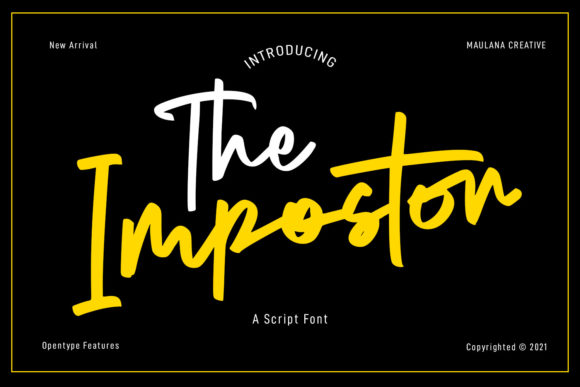
Introducing The Impostor Script Font, your ultimate weapon to conquer the job market and leave a lasting impression on potential employers. This captivating script font exudes a captivating blend of charm and professionalism, making it the perfect choice for crafting a resume that stands head and shoulders above the rest.
Unleash your creativity and watch as The Impostor Script transforms your resume into a masterpiece that radiates confidence and competence. Its intricate strokes and playful curves add a touch of flair that sets you apart from the crowd, ensuring that your application commands attention and sparks intrigue.
With The Impostor Script, you'll not only convey your skills and experience but also subtly reveal your impeccable taste and attention to detail. This font whispers of your dedication, passion, and unwavering determination to make a mark in your chosen field.
Elevate your resume to the next level and make a bold statement with The Impostor Script. Its timeless elegance and undeniable allure will captivate hiring managers and open doors to the job opportunities you truly deserve.
Don't settle for ordinary fonts that fade into the background. Embrace the power of The Impostor Script and watch as it transforms your resume into a captivating masterpiece that sets you on the path to success.
Immerse yourself in the world of The Impostor Script and let its magic ignite your imagination. Discover the endless possibilities it holds and unlock the potential that lies within your grasp.